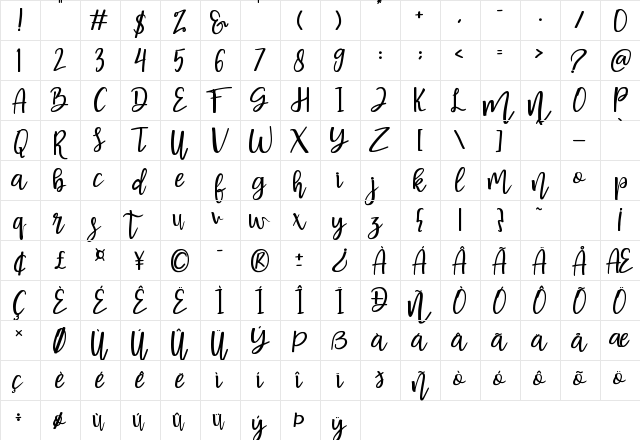
Basuhed Regular
| Designer | Stringlabs. 2020 |
Design Context for Basuhed Typeface
Basuhed is a composed and adaptable typeface that performs quietly and consistently across a wide range of design contexts.